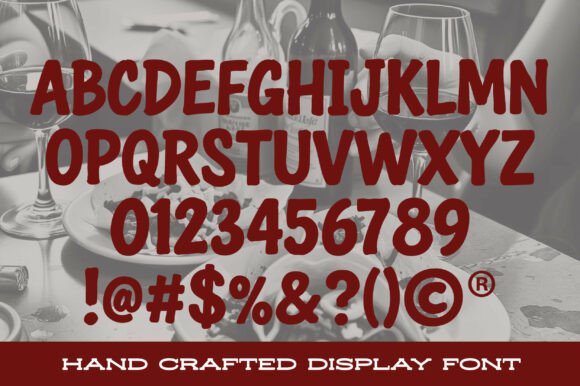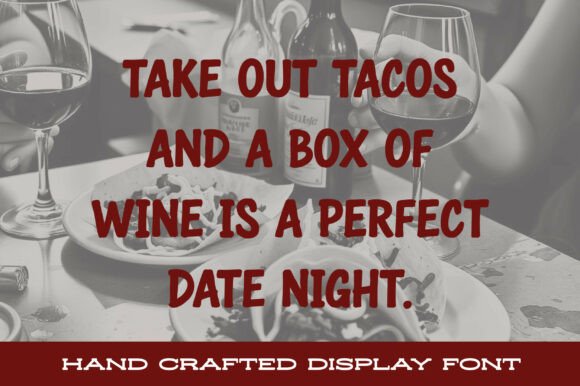
Introducing Cheap Wine Font: The Perfect Blend of Handcrafted Imperfection
Are you tired of using the same old polished fonts in your designs? Do you want to add a touch of raw authenticity to your logos, posters, menus, or packaging? Look no further than Cheap Wine Font, a bold, handcrafted font that wears its imperfections proudly.
The Story Behind Cheap Wine Font
Cheap Wine Font is more than just a font – it’s an experience. Every stroke carries the energy of a loaded brush and the texture of dried paint, giving it a rough, honest, and full-of-flavor feel. With its organic lines, thick slab feet, and uneven edges, Cheap Wine Font feels handcrafted and expressive, perfect for designers and crafters looking to add a personal touch to their work.
What Makes Cheap Wine Font Unique
- Handcrafted with love: Cheap Wine Font is carefully crafted by hand, giving it a unique and personal touch that’s hard to find in digital fonts.
- Imperfections are a feature: Unlike traditional fonts that strive for perfection, Cheap Wine Font celebrates its imperfections, making it feel more authentic and relatable.
- Organic lines and uneven edges: The font’s organic lines and uneven edges give it a natural, handcrafted feel that’s perfect for designs that need a touch of whimsy.
- Thick slab feet: The font’s thick slab feet add a sense of stability and balance, making it perfect for use in logos, headings, and titles.
Cheap Wine Font is perfect for designers and crafters looking to add a touch of raw authenticity to their work. Whether you’re designing a logo, poster, menu, or packaging, Cheap Wine Font is the perfect choice. Its unique blend of handcrafted imperfection and bold, expressive lines makes it perfect for:
- Logos: Add a touch of personality to your logo with Cheap Wine Font’s unique blend of handcrafted imperfection and bold, expressive lines.
- Posters: Create eye-catching posters that stand out from the crowd with Cheap Wine Font’s bold, attention-grabbing lines.
- Menus: Add a touch of whimsy to your menus with Cheap Wine Font’s organic lines and uneven edges.
- Packaging: Give your packaging a personal touch with Cheap Wine Font’s handcrafted feel and unique blend of imperfections.
Why Choose Cheap Wine Font?
With so many fonts to choose from, why should you choose Cheap Wine Font? Here are just a few reasons:
- Unique and authentic: Cheap Wine Font is a truly unique and authentic font that will set your designs apart from the crowd.
- Handcrafted with love: The font is carefully crafted by hand, giving it a personal touch that’s hard to find in digital fonts.
- Versatile: Cheap Wine Font is perfect for a wide range of design applications, from logos and posters to menus and packaging.
| Font Name | Cheap Wine Font |
| Author | stompstock |